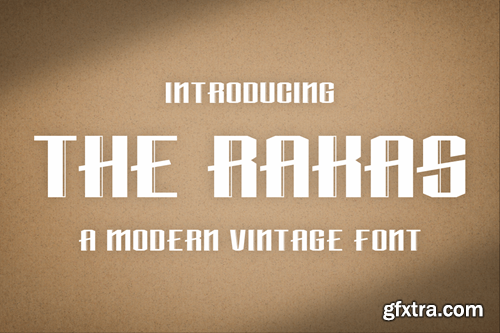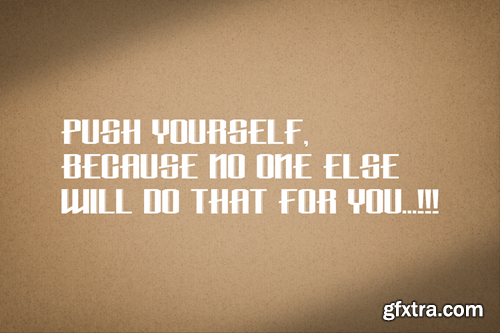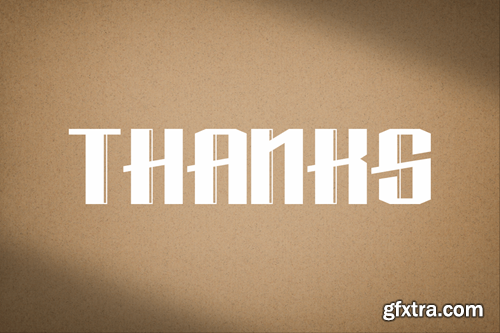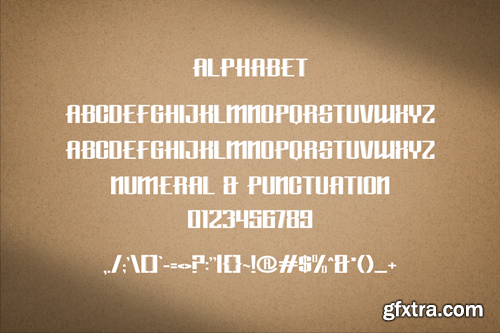
Rakas - 现代复古字体 DYY6J9G
TheRakas - Modern Vintage Font
Proudly presenting our new product TheRakas - Modern Vintage Font is a modern and authentic font. Perfect for professional and product branding needs, this font is suitable for any branding project such as quotes, logos, blog headers, posters, ribbons, letters, invitations, stationery, etc... Designed to be versatile and flexible that can be used on a variety of projects and media. extraordinary in a variety of contexts. Available In file form for download Of course Ttf Uppercase If you have any questions, queries or concerns please do not hesitate to contact us directly. Appearance and cover image Not included in the download file, for presentation purposes only